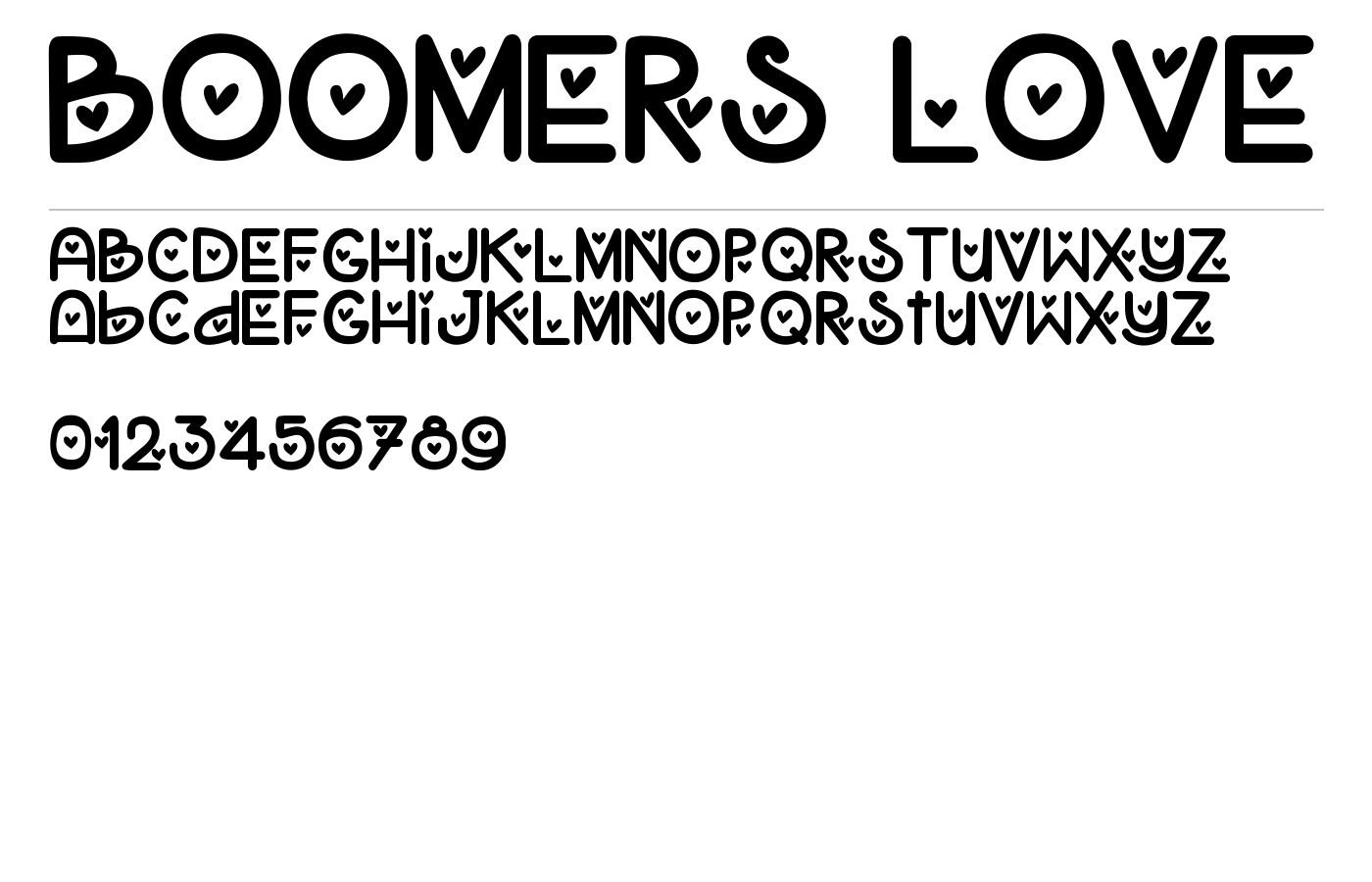
Boomers Love is a playful, rounded sans serif font featuring whimsical heart details within many characters, creating a friendly and charming vibe. Its bold weight and informal style make it perfect for fun, lighthearted designs such as children's products, casual branding, or cheerful event invitations. This font adds a joyful and loving touch wherever a warm and approachable feel is desired.
Boomers Love Font